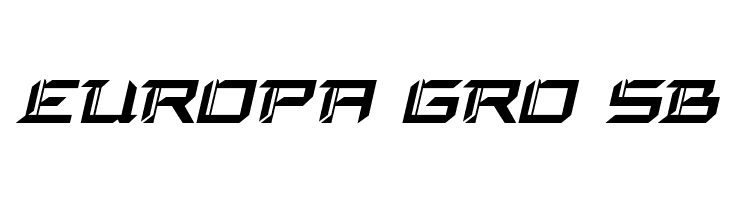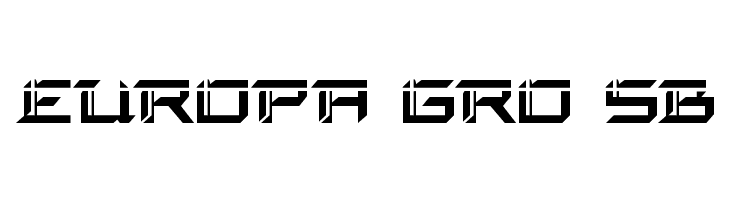
A bold, expressive brush-style font with a lively, handwritten appearance.
A whimsical, decorative font with playful patterns and embellishments.
An abstract, artistic font with fragmented and distorted letterforms.
Abstract, experimental font with organic, amorphous forms.
An elegant script font with flowing, interconnected letters and decorative flourishes.
An elegant and ornate script font with flowing, cursive characters and decorative flourishes.
A bold, expressive brush-style font with a hand-painted look.
A bold, brush-style font with dynamic, hand-painted strokes.
A classic serif font with elegant strokes and sharp serifs.
A classic serif font with bold, elegant curves and a modern touch.
A sophisticated script font with flowing, cursive letterforms and elegant curves.
A flowing, cursive font with elegant curves and smooth connections.
A playful and elegant script font with smooth, flowing characters.
A stylish and flowing script font with elegant curves and smooth connections.
A bold, angular font with high contrast and geometric elements.
A cursive, handwritten font with elegant, flowing strokes.
An elegant script font with flowing, cursive style and high contrast strokes.
An elegant script font with flowing lines and sophisticated style.
An elegant, flowing script font with smooth, cursive letterforms.
A classic serif font with elegant strokes and medium contrast.
A classic serif font with elegant and refined letterforms, suitable for formal contexts.
A whimsical, hand-drawn font with curly, vine-like strokes.
A decorative and geometric font with intricate uppercase and clean lowercase characters.
A sleek, modern geometric font with consistent line weight and minimalist design.
A playful, cursive font with bold, sweeping curves and artistic flair.
A playful, handwritten font with a whimsical and informal style.
An elegant, cursive font with flowing, intricate designs and dramatic flourishes.
A graffiti-inspired font with jagged, energetic strokes and an urban vibe.
A modern, elegant script font with flowing curves and sophisticated style.
A bold, elegant script font with flowing, cursive lines.
A dynamic brush-style font with scratchy, textured strokes for an artistic look.
A playful, casual font blending script and sans-serif styles.